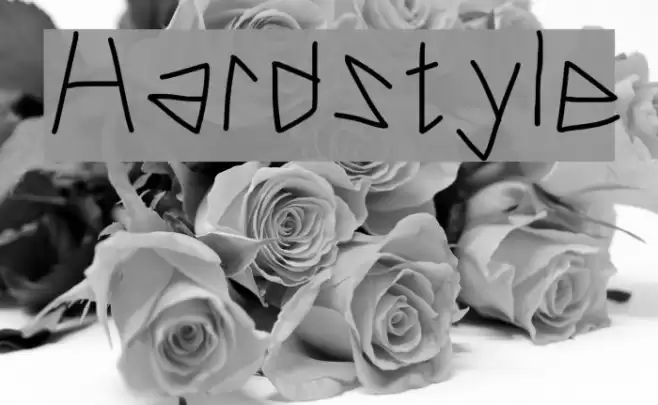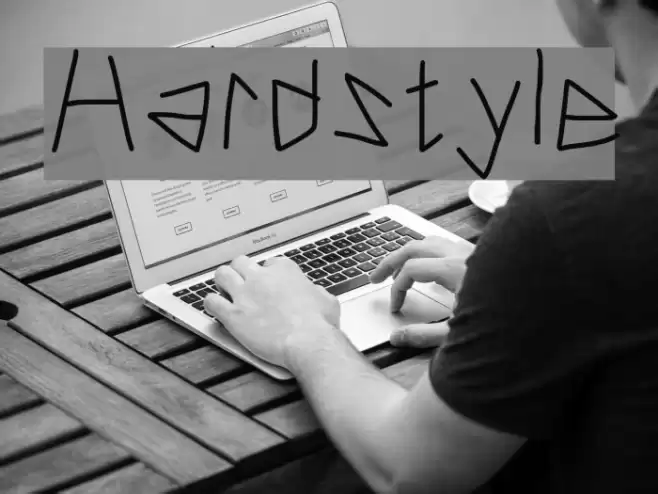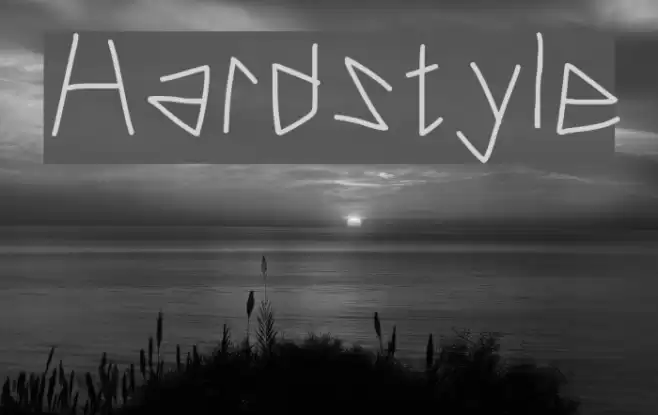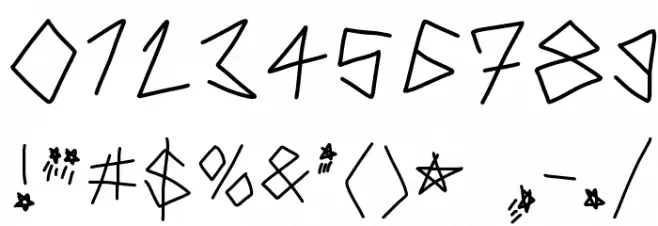
Hardstyle Font
This font features a distinctive, edgy style with sharp angles and irregular lines, giving it a hand-drawn, graffiti-like appearance. The uppercase and lowercase letters maintain a consistent angular theme, with some characters incorporating star-like embellishments. Numbers follow the same angular design, providing a cohesive look across all characters. Special characters are creatively styled, adding to the font's unique personality. This font's unconventional and bold design makes it stand out, ideal for projects that require a strong visual impact.
An edgy, hand-drawn font with sharp angles and a graffiti-like style from Uncategorized fonts.
- Proposed Projects: Perfect for album covers, streetwear branding, event posters, and digital art projects.